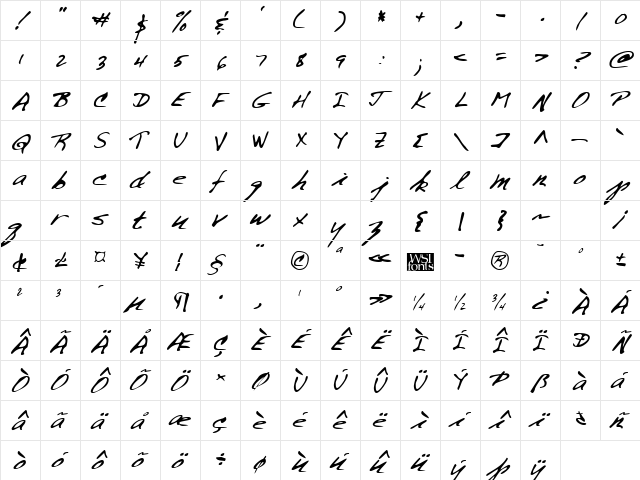
ScottsHand Regular
Design Context for ScottsHand Typeface
ScottsHand flows with the natural rhythm of handwritten lettering, making it ideal for designs that call for warmth and personal expression.
Font Pairing: Combine ScottsHand with a simple geometric sans for maximum contrast — the tension between flowing curves and clean structure is a classic typographic pairing.
Pro Tip: Use ScottsHand for short runs of text — names, titles, or taglines. Extended body copy in script faces tires the eye quickly.